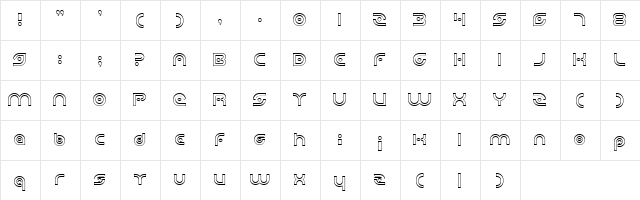
Planetary Orbiter Outline Regular
Design Context for Planetary Orbiter Outline Typeface
Planetary Orbiter Outline brings ornamental detail and strong personality to headlines and identities, where visual impact matters more than quiet functionality.
Font Pairing: Pair with a clean neutral sans-serif for body copy to let Planetary Orbiter Outline's character lead without overwhelming the composition.
Pro Tip: Use Planetary Orbiter Outline exclusively at display sizes — it was designed to be seen, not read at length. Let a neutral companion handle body copy.